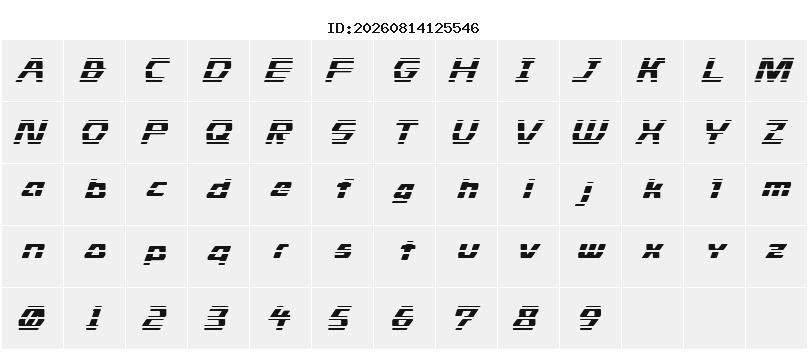
Stride Preview
• Font Name: Stride
• Full Font Name: Stride
• PostScript Name: Stride
About Stride.ttf
Stride.ttf is a modern, elegant sans-serif font designed for ultimate readability and visual harmony. Perfect for branding, headlines, web design, and print materials.